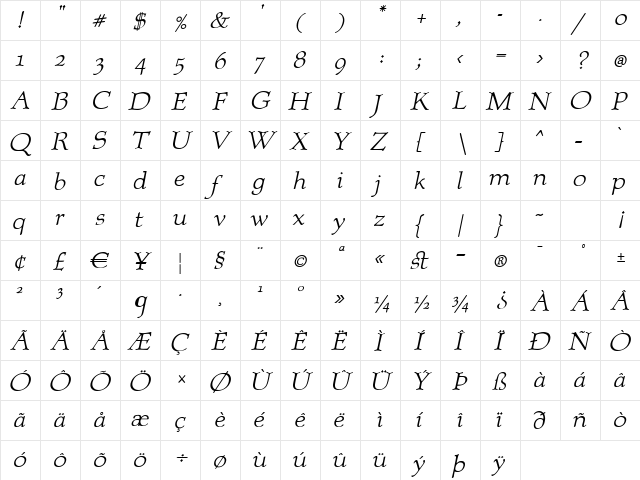
AlbionItalic Regular
Design Context for AlbionItalic Typeface
AlbionItalic is a composed and adaptable typeface that performs quietly and consistently across a wide range of design contexts. The slanted form adds forward momentum and visual energy.